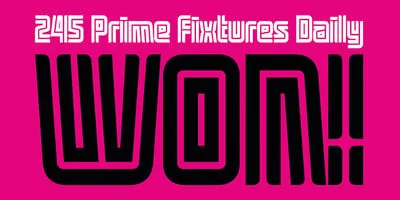
Champion Font
Champion Font is perfect for sports team branding, athletic apparel designs, fitness gym signage, championship event graphics, motivational posters, competition announcements, victory celebrations, sports merchandise, team jerseys, tournament promotions, and any project that requires winning spirit with competitive excellence.
What makes Champion Font exciting is its uncompromising embodiment of victory and athletic achievement that instantly communicates strength, determination, and championship caliber through powerful letterforms. This commanding typeface features bold, confident strokes with dynamic proportions that evoke the thrill of competition and the glory of victory. The font's winning character inspires excellence and motivates peak performance, making it perfect for brands and organizations dedicated to athletic achievement and competitive success.
Champion Font comes in multiple font families including Regular, Bold, Condensed, Outline, 3D, and Athletic variations, providing designers with comprehensive options to create triumphant compositions and achieve the perfect championship aesthetic for sports-focused design projects.
Whether you're developing athletic brand identity, creating championship celebration materials, or designing competitive sports campaigns, Champion Font offers the perfect solution for projects demanding victorious visual impact and athletic excellence. This powerful typeface excels in display applications where winning presence is essential, ensuring your designs communicate championship quality and competitive spirit. The bold character and athletic styling of Champion Font make it an indispensable tool for designers who prioritize sporting excellence, competitive achievement, and victory celebration in their typographic selections.